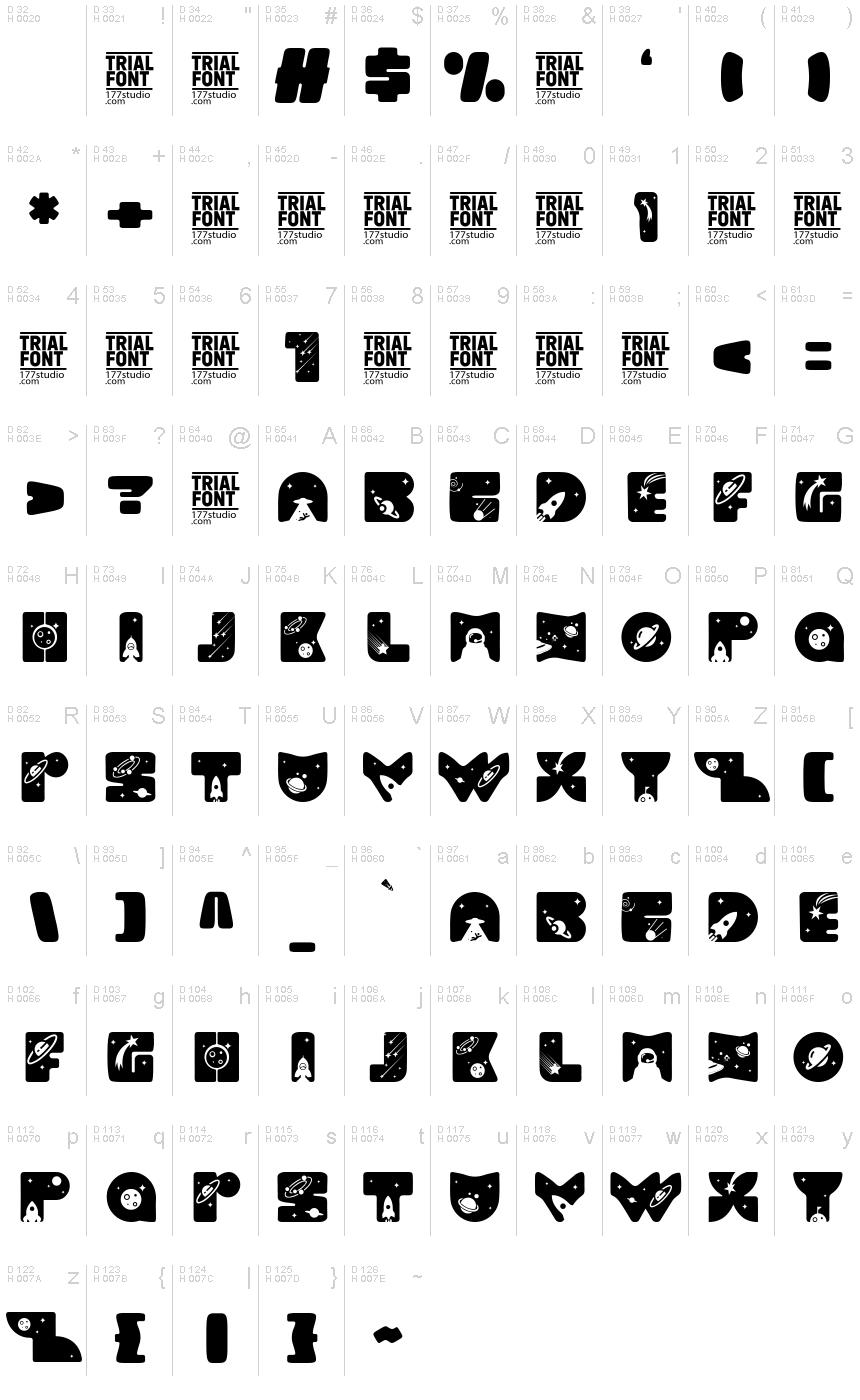
SOLAR SPACE DEMO Regular
Solar Space, designed by 177Studio, is a bold and expanded decorative display font that exudes a cosmic charm. Its design captures the imagination with playful, space-themed graphics seamlessly integrated into each letter. The bold weight of the font commands attention while its expanded width ensures readability and impact. This truly distinctive typeface brings the mysteries and wonders of the universe to your designs.
Perfect for posters, headlines, book covers, or any creative project seeking an adventurous flair, Solar Space infuses a sense of exploration and dynamism. Whether you're working on children's books, science fiction themes, or branding for tech ventures, this font promises to elevate your visuals with its interstellar appeal. Let Solar Space transport your audience beyond the stars with every word.